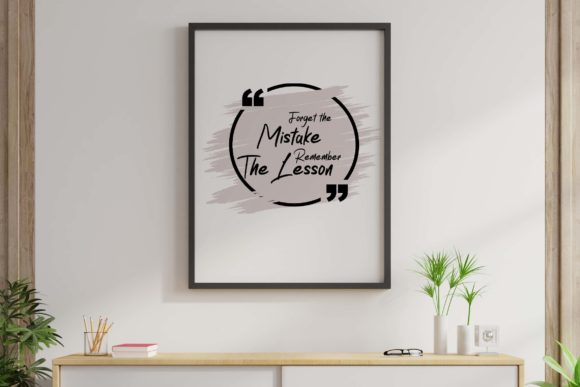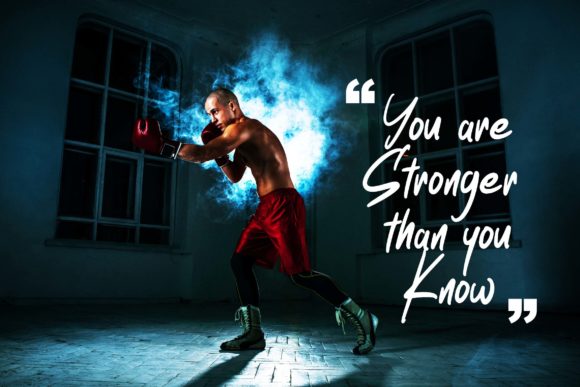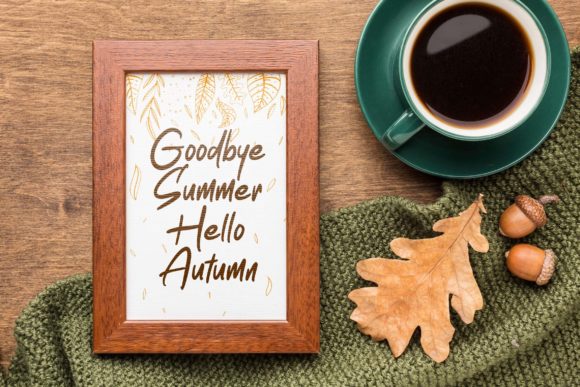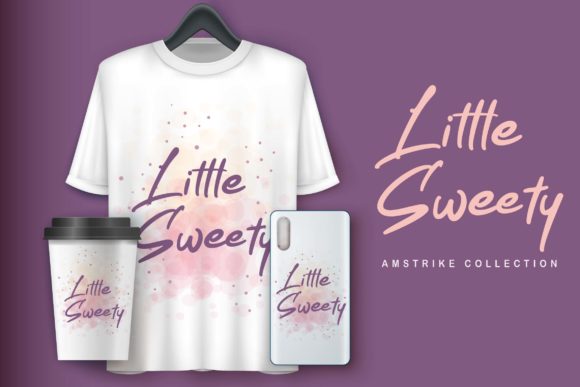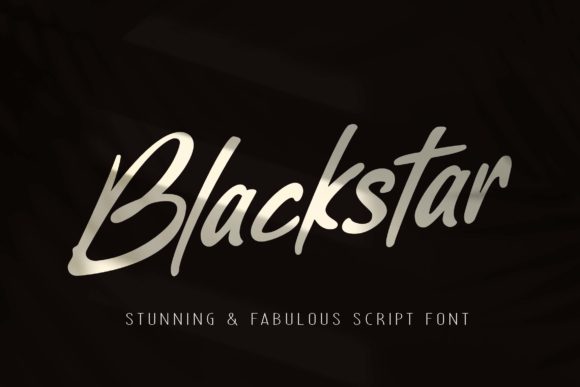
Unleash Your Creativity with Blackstar Font: A Cool, Brushed, and Casual Handwritten Font
Are you tired of using the same old fonts in your designs? Do you want to add a touch of personality and uniqueness to your creations? Look no further than Blackstar Font, a cool, brushed, and casual handwritten font that’s sure to take your designs to the next level. In this article, we’ll dive into the world of Blackstar Font, exploring its features, benefits, and uses, and show you how to make the most of this amazing font.
What is Blackstar Font?
Blackstar Font is a beautifully crafted, handwritten font that’s perfect for designers, crafters, and anyone looking to add a personal touch to their projects. With its unique, brushed texture and casual feel, Blackstar Font is ideal for a wide range of applications, from digital designs to print materials.
Features of Blackstar Font
So, what makes Blackstar Font so special? Here are just a few of its key features:
- Cool and Casual: Blackstar Font has a relaxed, laid-back vibe that’s perfect for designs that need to feel friendly and approachable.
- Brushed Texture: The font’s brushed texture gives it a unique, organic feel that’s sure to add depth and interest to your designs.
- Handwritten: Blackstar Font is a true handwritten font, with each letter carefully crafted to give it a personal, human touch.
- Versatile: Whether you’re designing for digital or print, Blackstar Font is versatile enough to work in a wide range of applications.
Benefits of Using Blackstar Font
So, why should you choose Blackstar Font for your next project? Here are just a few of the benefits you can expect:
- Adds Personality: Blackstar Font is the perfect way to add a touch of personality to your designs, setting them apart from the crowd.
- Easy to Read: Despite its casual feel, Blackstar Font is surprisingly easy to read, making it perfect for body text as well as headlines.
- Unique: With its brushed texture and handwritten feel, Blackstar Font is a truly unique font that’s sure to make your designs stand out.
- Time-Saving: With Blackstar Font, you can create professional-looking designs in no time, saving you hours of time and effort.
Uses of Blackstar Font
So, what can you use Blackstar Font for? The possibilities are endless, but here are a few ideas to get you started:
- Digital Designs: Use Blackstar Font in your digital designs, such as social media graphics, blog posts, and email newsletters.
- Print Materials: Blackstar Font is perfect for print materials, such as brochures, flyers, and business cards.
- Branding: Use Blackstar Font as part of your brand identity, adding a touch of personality to your logo and marketing materials.
- Crafting: Blackstar Font is a great choice for crafters, adding a personal touch to handmade cards, scrapbook pages, and other projects.
How to Use Blackstar Font
Using Blackstar Font is easy! Here are a few tips to get you started:
- Pair with Other Fonts: Experiment with pairing Blackstar Font with other fonts to create a unique and eye-catching combination.
- Adjust the Size: Don’t be afraid to experiment with different font sizes to add emphasis and create visual interest.
- Add Effects: Consider adding effects, such as texture or shading, to give your text an extra boost.
Blackstar Font is a cool, brushed, and casual handwritten font that’s perfect for designers, crafters, and anyone looking to add a personal touch to their projects. With its unique features, benefits, and uses, Blackstar Font is sure to become a favorite in your font collection. So why wait? Add Blackstar Font to your favorite creations today and see the amazing outcome for yourself!